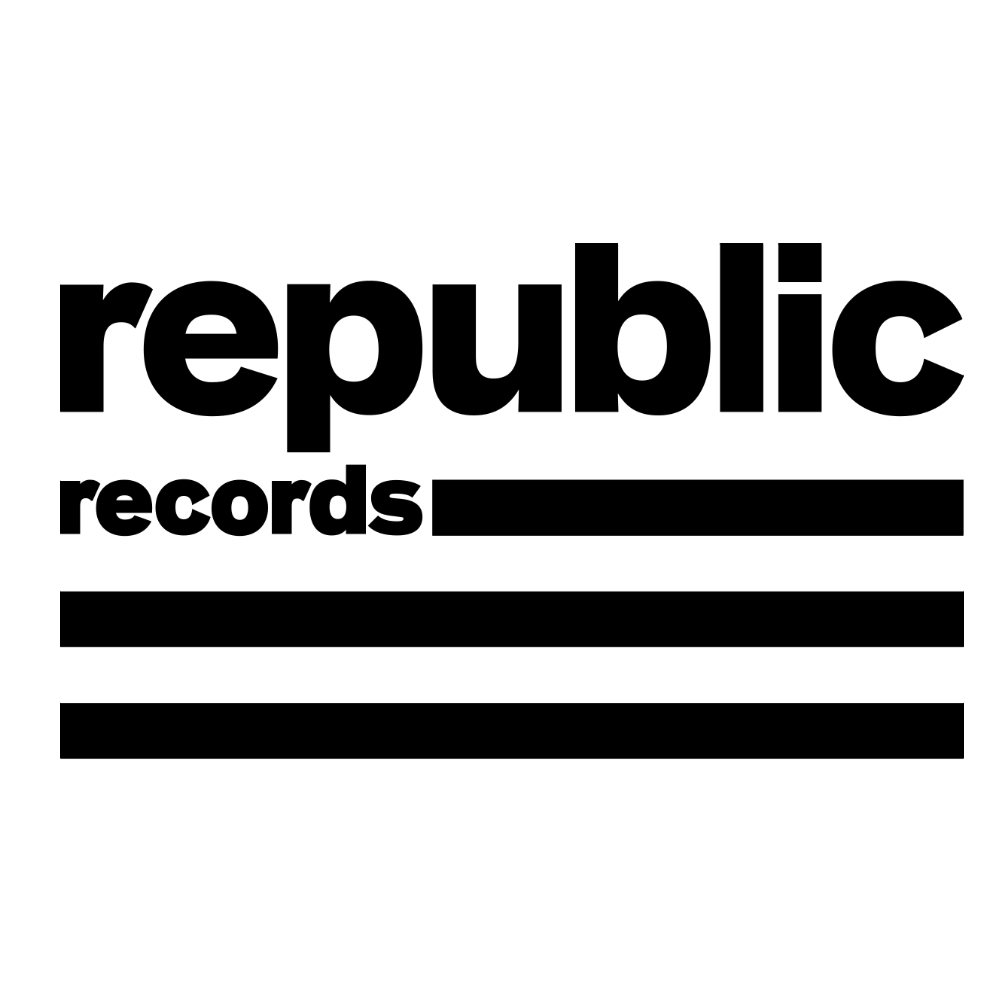
Republic Records Font
Fonts in UseRepublic Records is a record label founded by brothers Avery Lipman and Monte Lipman in 1995. It is currently one of the largest and most successful labels in the music industry, with a roster of top artists including Drake, Ariana Grande, and Taylor Swift.
It appears that FF Bau Bold was used to create the logo. FF Bau was created by Christian Schwartz and made available through FontFont in 2002. It was inspired by the Grotesk typeface from the late eighteenth century.